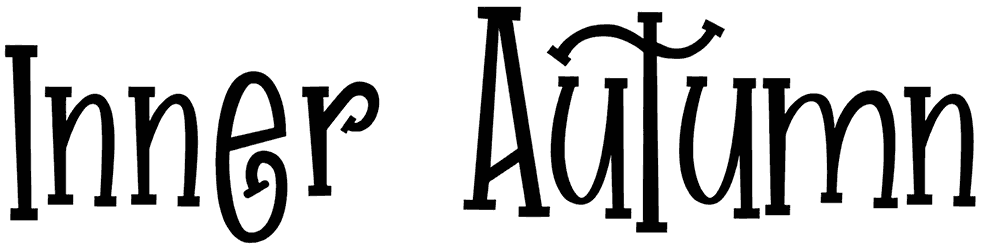
Inner Autumn Font
Inner Autumn font reminds sweet memorable moments when autumn is coming. The handwritten font is an emotional font appropriate for writing short love stories, and old legends. This collection can come in handy for purpos…
Inner Autumn font reminds sweet memorable moments when autumn is coming. The handwritten font is an emotional font appropriate for writing short love stories, and old legends. This collection can come in handy for purposes like flyers, posters, and book covers as well since it is able to bring a playful and approachable feel to your design.